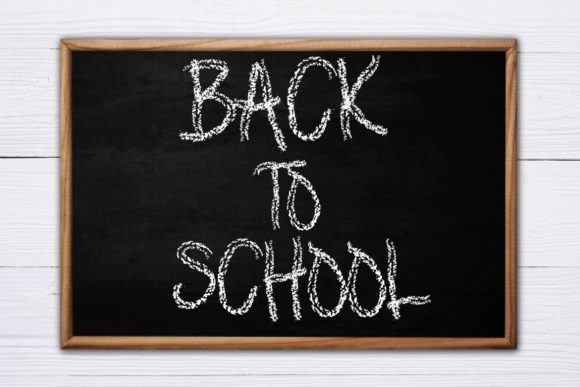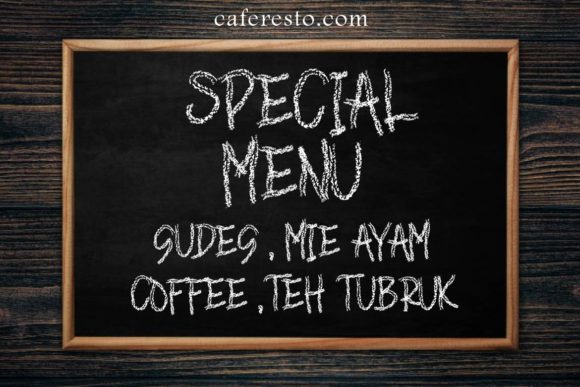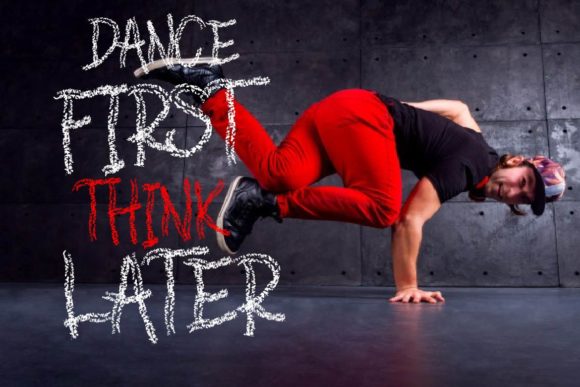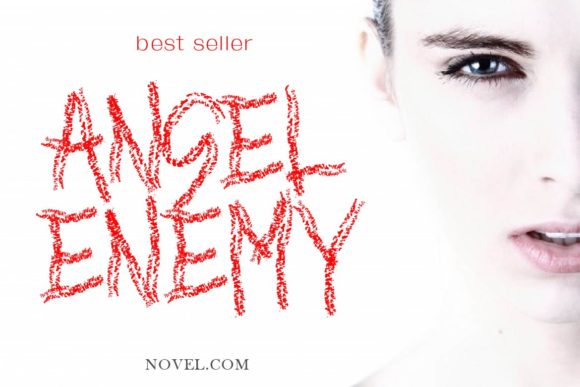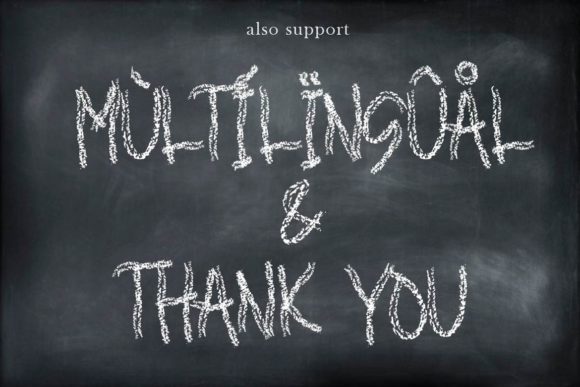
Introduction to Pastel Ink Font
You’re sitting at your desk, staring at a blank canvas, and the creative juices just aren’t flowing. But then you stumble upon the perfect font – one that instantly transports you to a world of artistic expression. For designers, finding the right font can be the difference between a project that feels lackluster and one that truly shines. That’s where the Pastel Ink Font comes in – a raw script font that adds an authentic feel to any design project.
This dry brush style font is a game-changer for designers looking to add a touch of uniqueness to their work. With its high-quality design and transparent background, it’s the perfect resource for any creative project. And the best part? It’s available for free download, making it an accessible addition to your design toolkit.
Key Features of Pastel Ink Font
- High-quality, unique design with a soft, pastel color palette, perfect for creative projects and design resources.
- Includes a wide range of characters, including uppercase and lowercase letters, numbers, and punctuation marks, making it suitable for various design applications.
Honest Review: Pastel Ink Font
I recently stumbled upon the Pastel Ink Font, a design resource that has caught my attention with its high quality and soft, pastel colors. As a designer, I appreciate fonts that can add a touch of whimsy and elegance to a creative project.
- ✨ Soft, pastel colors that are perfect for adding a touch of femininity to a design.
- ✨ High quality and clear typography, making it easy to read and use.
Overall, I’m impressed with the Pastel Ink Font and its potential to add a touch of elegance and whimsy to a design. While it may have some limitations, I think it’s a great resource for designers looking for a high-quality, free font to use in their creative project.
The Pastel Ink Font is a high-quality design resource perfect for creative projects that require a soft, elegant touch. With its transparent background and free download option, it’s an ideal addition to any design collection.
Even in PowerPoint and Word, the Pastel Ink Font can elevate your presentations and documents. Use it to add a touch of sophistication and elegance to your typography.
The Pastel Ink Font is perfect for a variety of creative projects, including:
- Brand identity and marketing materials
- Photography and art projects
- Education and presentation materials